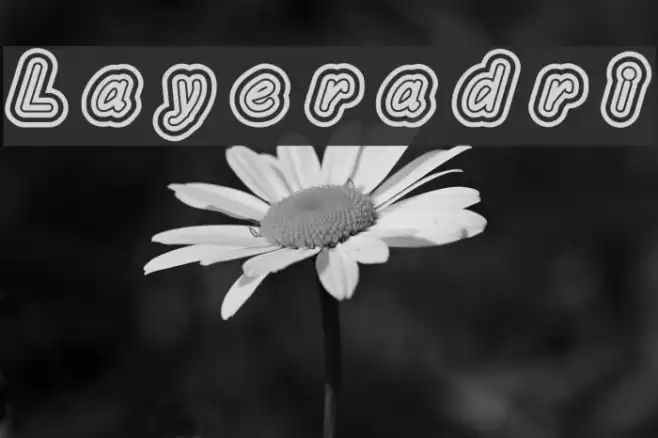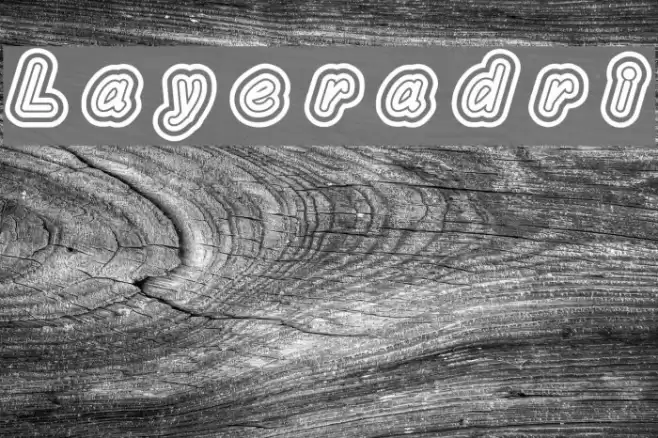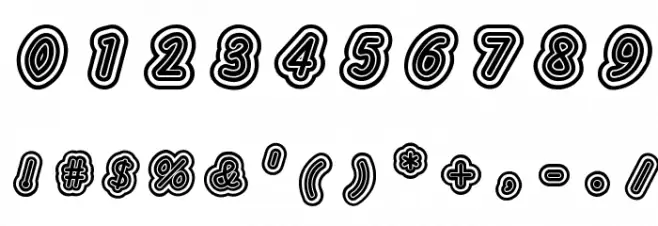
Layeradri Font
Layeradri Description
This font features a bold, playful design with a distinct outline that gives each character a layered, three-dimensional appearance. The rounded edges and uniform stroke width contribute to its approachable and friendly aesthetic. The characters are well-spaced, ensuring readability while maintaining a cohesive look. This style is particularly eye-catching, making it suitable for designs that require a fun and engaging visual element. The font includes a full set of uppercase and lowercase letters, numbers, and a variety of special characters, enhancing its versatility for different design needs.
A bold, playful font with a layered, three-dimensional outline from Uncategorized fonts.
- Proposed Projects: Ideal for children's books, playful branding, posters, and social media graphics.
- Overall Style: Playful